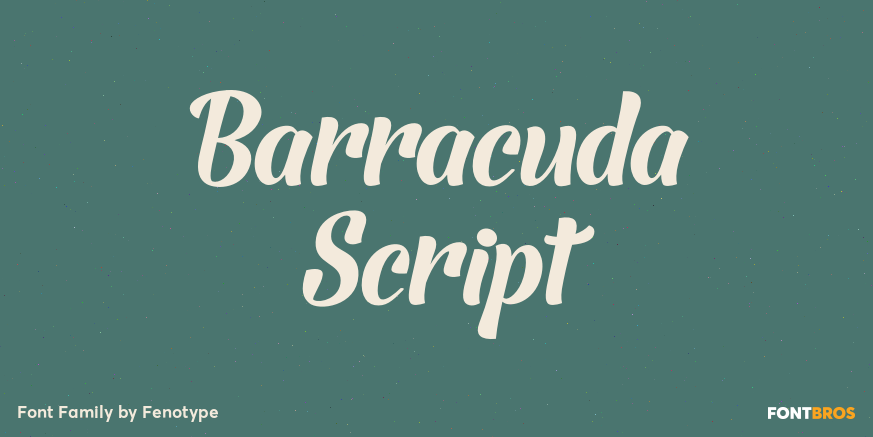
Barracuda Script
About Barracuda Script
Barracuda is a bold and vibrant brush family of three weights and matching ornament sets. Barracuda is packed with alternate characters, each basic letter has at least four variants to allow you create customized headlines. To activate the alternates…